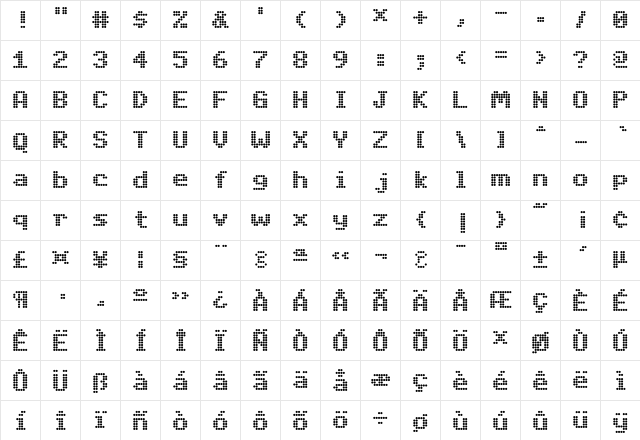
DotMatrix TwoExtended
Design Context for DotMatrix Typeface
DotMatrix is rooted in pixel-grid construction, making it a natural fit for game UI, retro computing aesthetics, and digital nostalgia projects.
Well-suited to indie game interfaces, retro computing aesthetics, and pixel art-adjacent design work.
Pro Tip: Use DotMatrix at sizes that align with its pixel grid for the sharpest rendering — scaling to non-integer multiples can introduce unwanted blur.